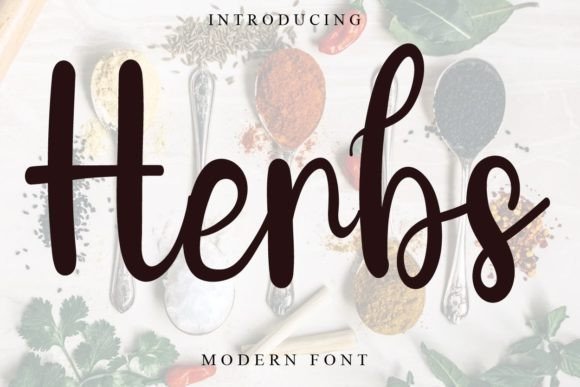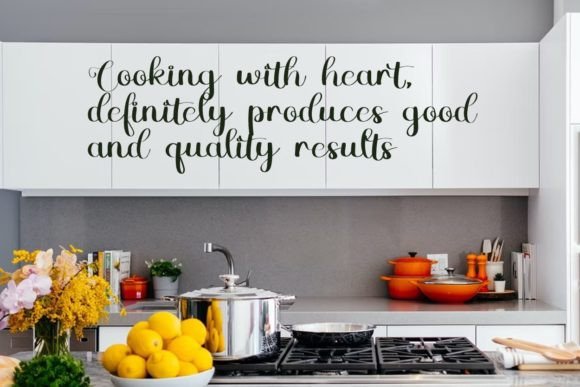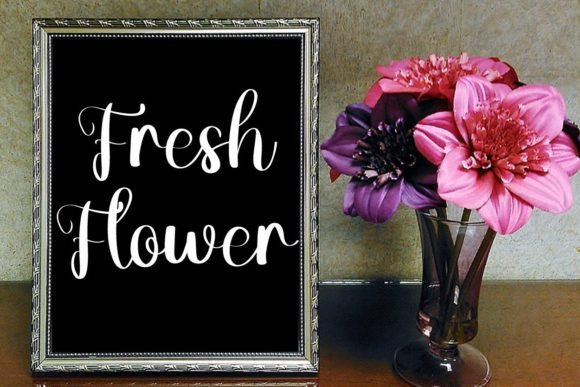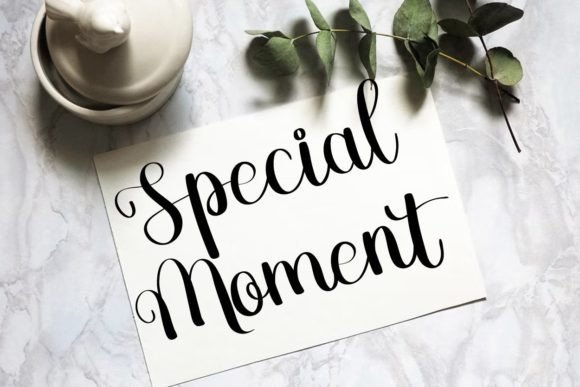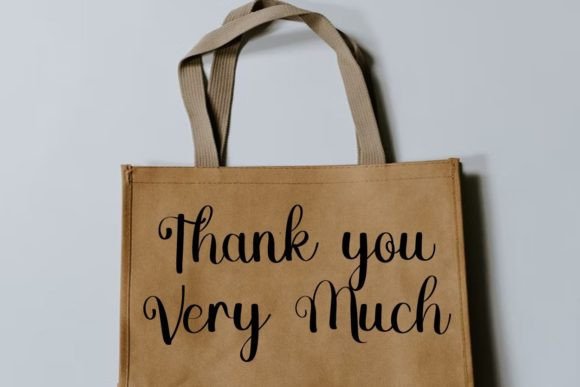
Unlock the Fresh Look You’ve Been Craving
Remember the feeling of strolling through a lush garden on a warm summer day, surrounded by the vibrant aromas of fresh herbs? That’s exactly the kind of creativity and inspiration we’re looking to tap into with the introduction of Herbs Font. This beautiful font is designed to add a touch of freshness and uniqueness to your designs, making it perfect for YouTube banners, cover logo mockups, wedding invitations, and more.
As a designer, you’re constantly on the lookout for that special something that sets your projects apart from the rest. Herbs Font is that something. Its simplicity and uniqueness make it an invaluable asset to your design toolkit, allowing you to create stunning visuals that capture the attention of your audience and elevate your brand to the next level.
Herbs Font Key Features
- Unique Characteristics: Herbs Font features a unique, hand-drawn style with intricate details and subtle texture, adding a touch of elegance to any design.
Designer Review: Herbs Font
Overall, I found Herbs Font to be a lovely addition to any design project. ✨ The subtle curves and natural shapes evoke a sense of organic charm, making it perfect for branding and packaging projects that aim to convey a sense of earthiness.
Here are some of the things that work well in Herbs Font:
- ✨ Excellent legibility, even at smaller font sizes
- ✨ Great for headings and titles, where the unique charm of the font can shine
- ✨ Supports a wide range of languages, making it a versatile choice for international projects
- ⚠️ Limited font weight options, which may not be ideal for projects that require a lot of emphasis on headings
- ⚠️ May not be the best choice for projects that require a lot of bold or italic text, as the font’s natural curves can become difficult to read in these styles
- ⚠️ Not as suitable for digital interfaces, where a more modern and clean font is often preferred
Overall, I would recommend Herbs Font for projects that require a natural and earthy feel. While it may have some limitations, its unique charm and excellent legibility make it a great choice for the right project.
Herbs Font is designed to be versatile and can be used at a variety of font sizes. However, for optimal readability, we recommend using font sizes between 12pt and 24pt. For headings and titles, you can use larger font sizes up to 48pt or more.